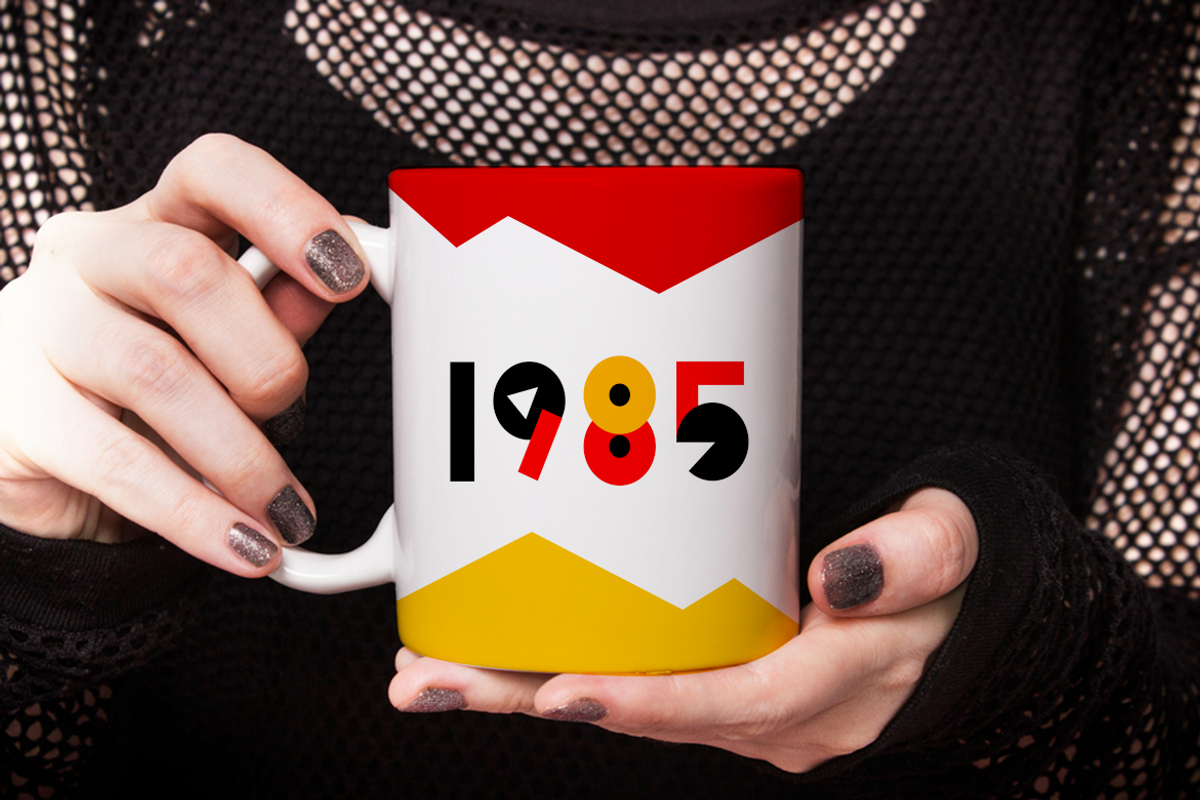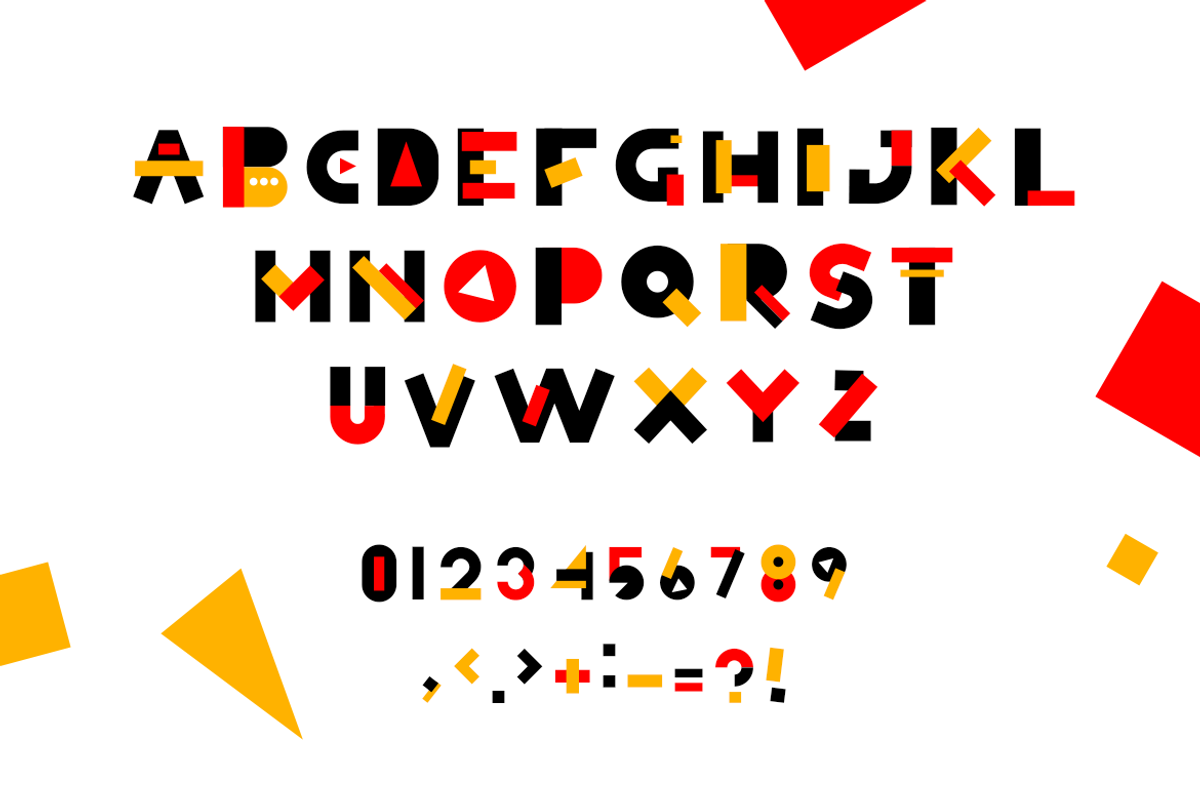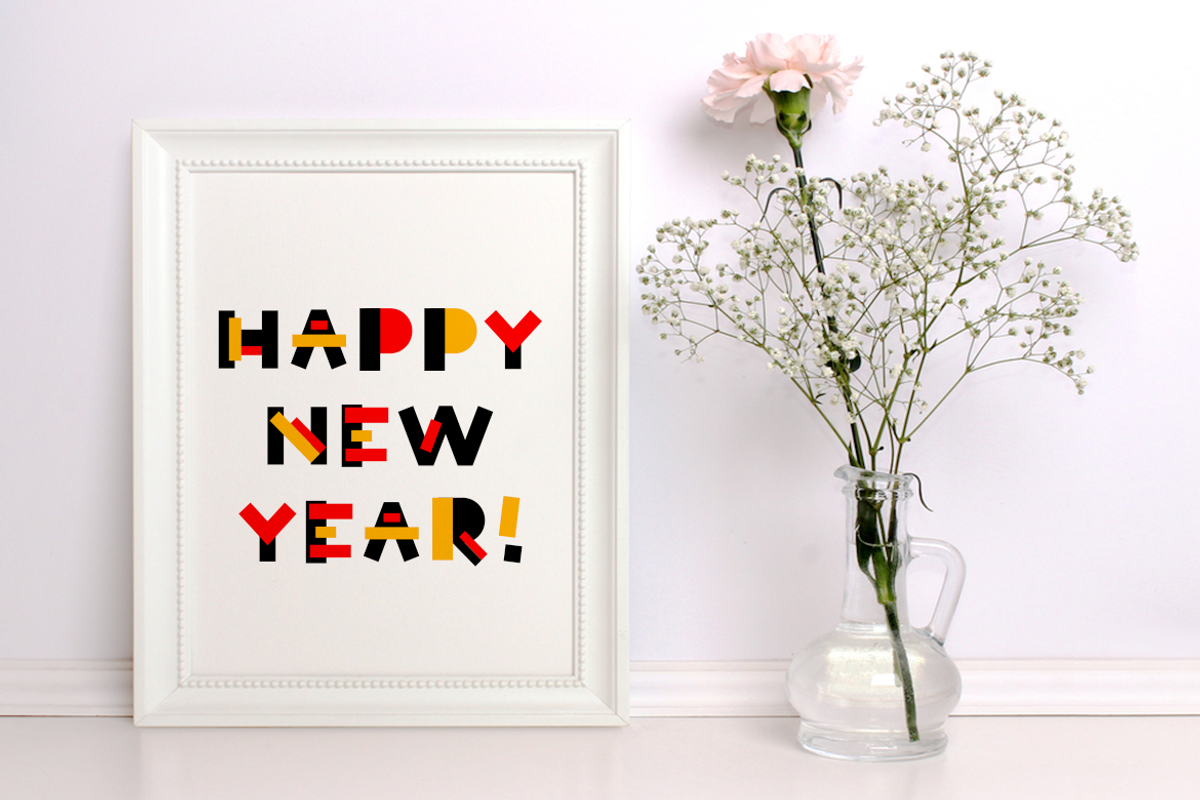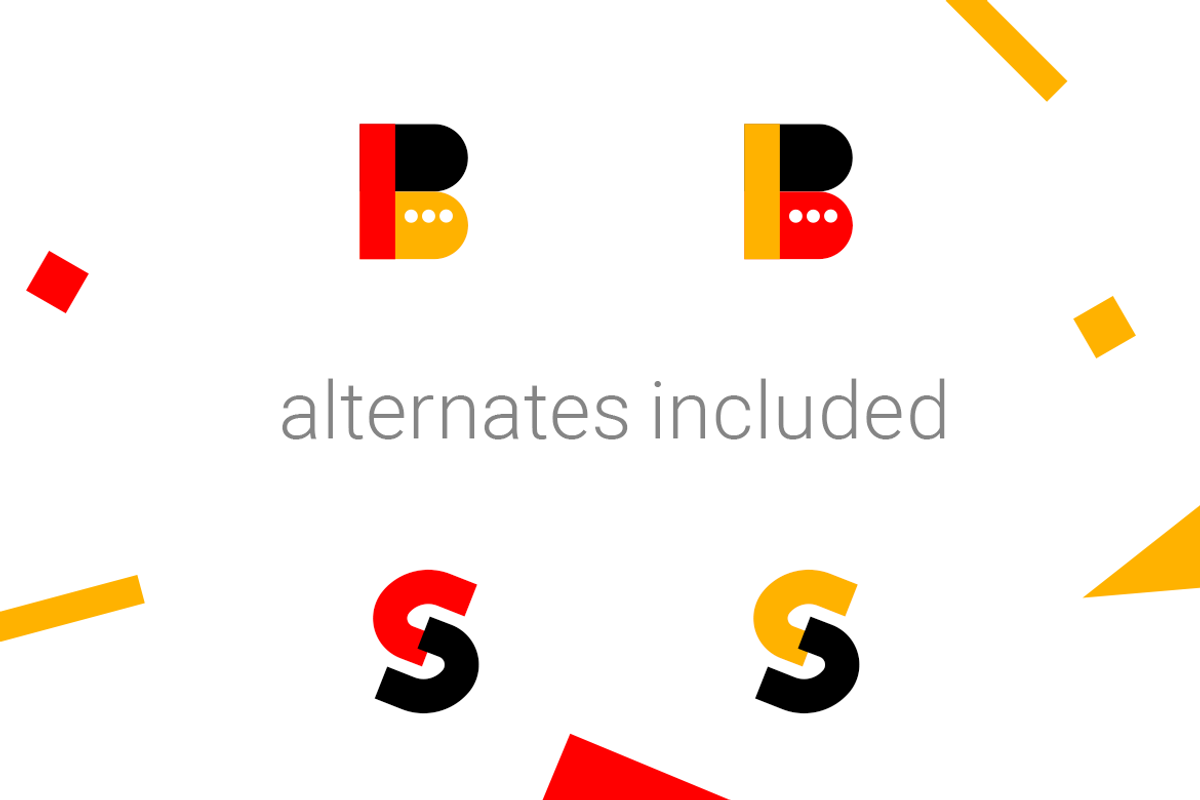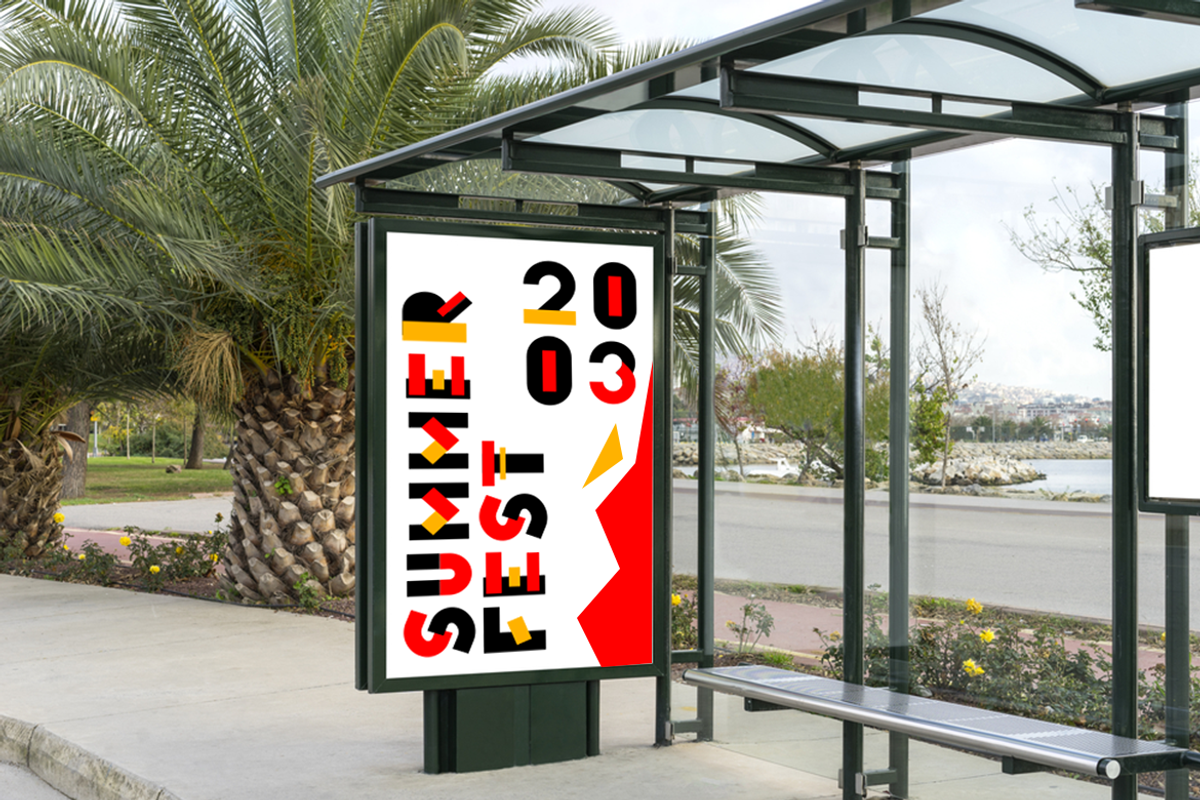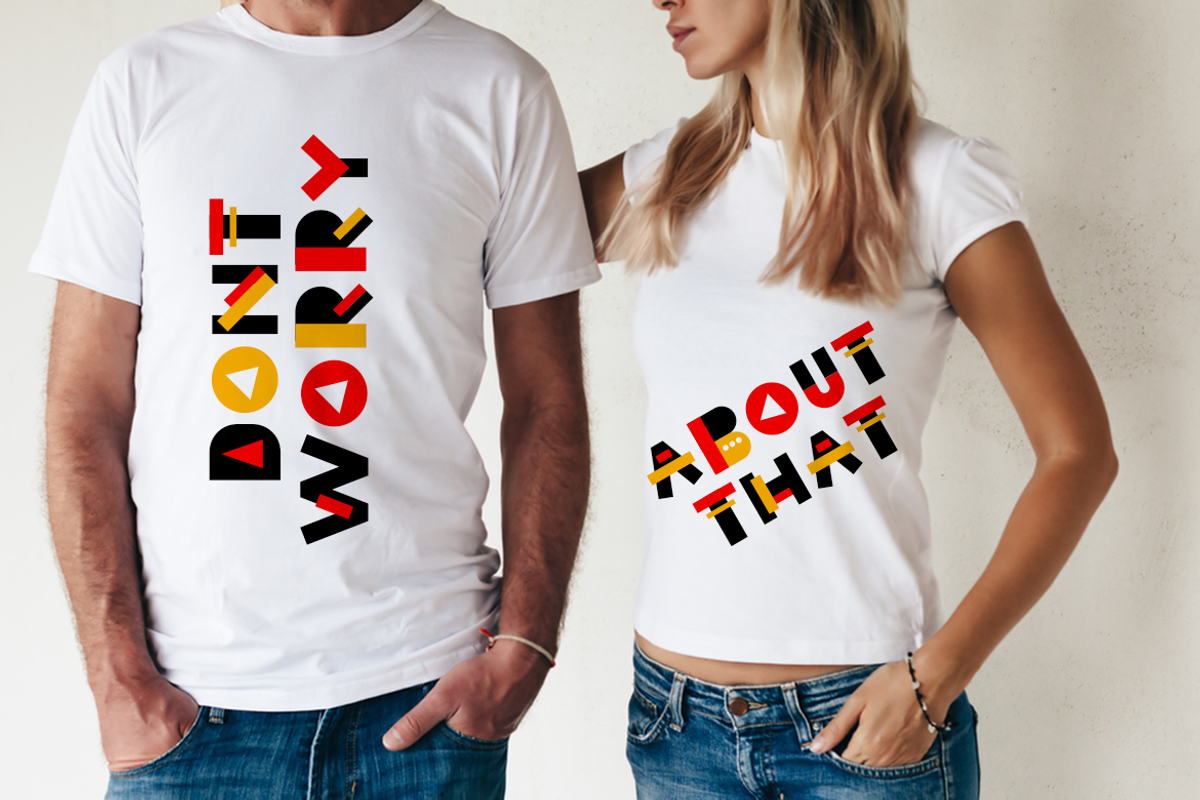
Simbox| the color geometric font
Simbox is a sans serif font designed with color elements. The font is unusual, wide and straight, it works great to make logos and short titles. The font has color alternates to make the headers varied.
numbers & punctuation